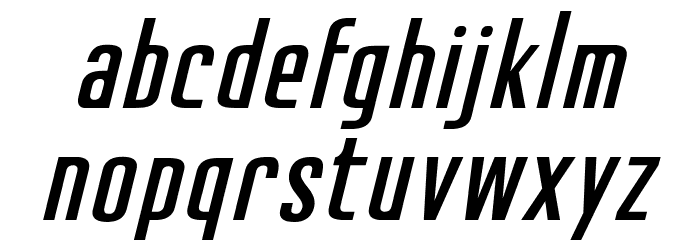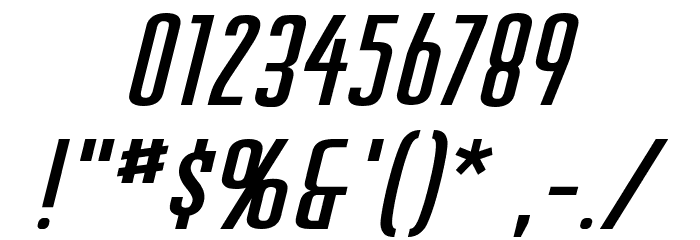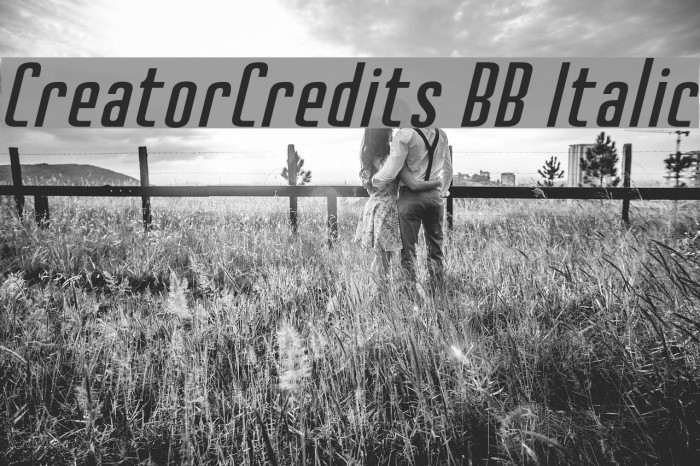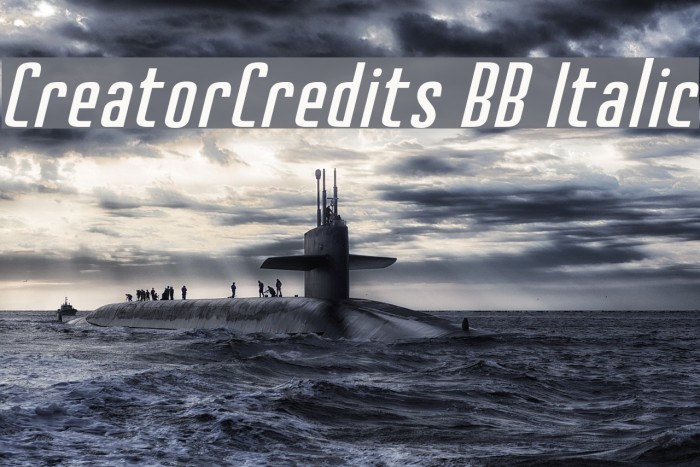
CreatorCredits BB Italic Font
This font features a dynamic and modern design with a distinct italic slant, giving it a sense of motion and energy. The characters are elongated and slightly condensed, contributing to a sleek and streamlined appearance. The strokes are consistent in weight, providing a uniform look across all characters. The uppercase and lowercase letters maintain a harmonious balance, while the numerals are clear and legible. Special characters are well-integrated, ensuring versatility in various design contexts.
A modern, italic font with a sleek, condensed style and consistent stroke weight.
- Proposed Projects: Ideal for branding, advertising, and editorial design where a modern and energetic feel is desired.
- Use Case: Headlines, Logos, Branding